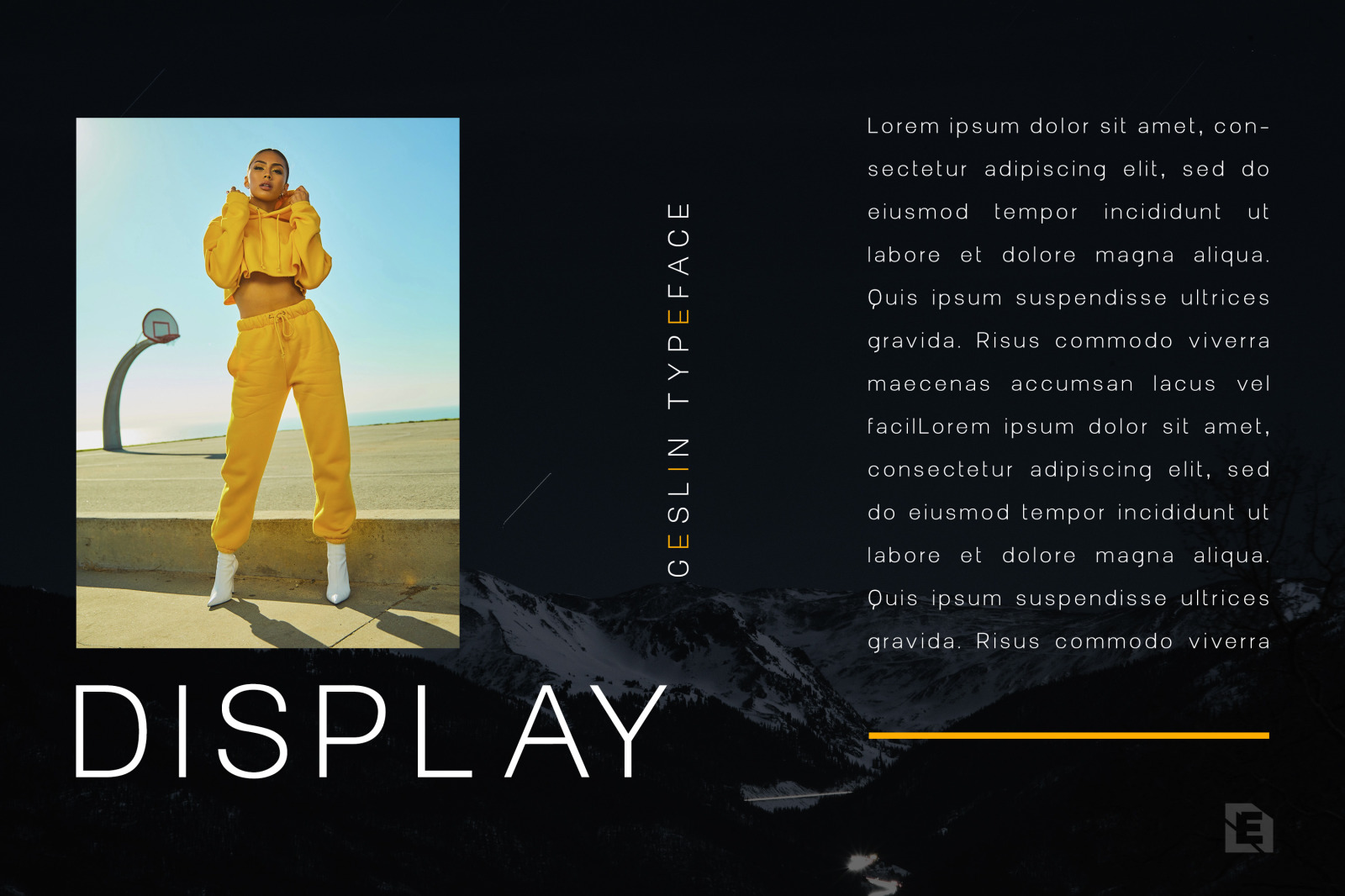
Geslin Font
Geslin a cool, classy typeface that's sporty and perfect for working with typography, whether it's for your badges, signatures, store, catalogs, or something else related to fashion and the arts. It's extremely simple to use. Not only that, it looks great on racing posters, automobile ,t-shirts, children's cards, and so much more!
The Geslin has a unique aesthetic beauty that makes it ideal for glitzy headlines, branding, logotypes, and display applications. It can be used to make claims about luxury, fashion, and style. This font can also be used to create eye-catching logos, promotional materials, and marketing graphics that will pique the attention of your visitors. To get a sense of the typeface's capabilities, look at the examples above.
This font has 200 above glyphs and extensive Latin script support and upper and lowercase sans serif characters. It carries a powerful, unique, and social character line with a premium finish, giving a new impression. Add it confidently to your favorite creations and let yourself be amazed by the outcome generated.
Uppercase
lowercase
punctuations